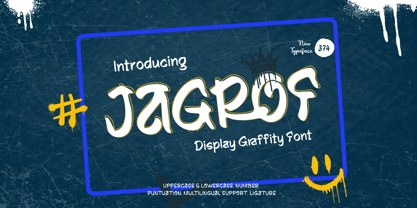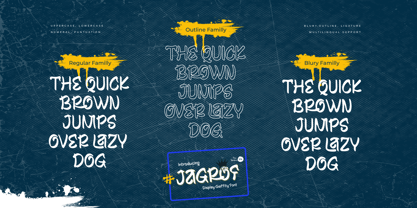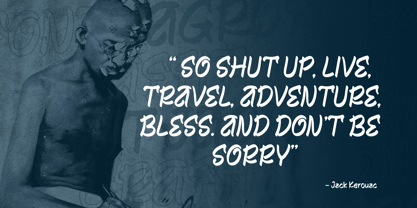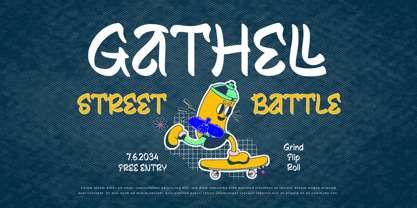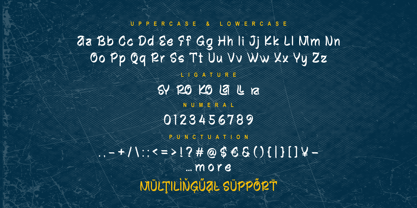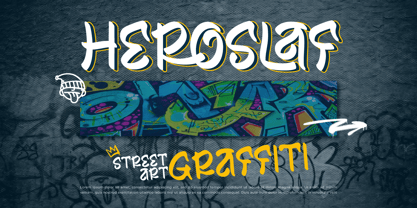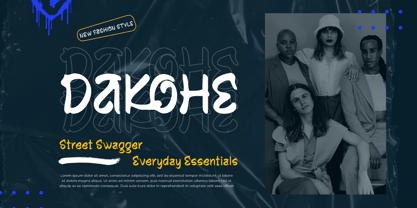
Jagrof
by Twinletter
The Jagrof Font Family was designed by Rozikan and published by Twinletter. Jagrof contains 3 styles and family package options. More about this family
Jagrof is an electrifying graffiti display font that brings urban energy and raw artistic expression to life. Designed with bold strokes and dynamic curves, this font captures the spirit of street art and transforms it into a versatile typeface perfect for edgy designs.
Whether you’re working on poster artwork, music album covers, streetwear branding, or eye-catching digital graphics, Jagrof adds a striking visual impact. Its rebellious and playful aesthetic lends itself well to projects that demand boldness and creativity.
Crafted for designers who embrace artistic freedom, Jagrof offers an authentic graffiti vibe while maintaining readability and balance. Let its street-smart charisma infuse your work with character and individuality, turning every project into a masterpiece with urban edge.